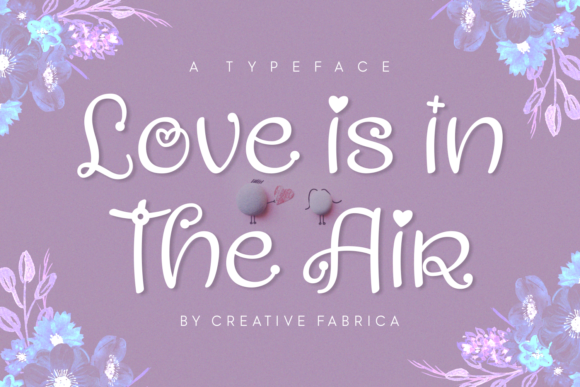
Love is in the Air Font
As a small business owner, I know how important it is to create a cohesive and professional brand identity. That’s why I’m excited to share how Love is in the Air, a beautiful script font from Script Amp, can elevate your business materials with its elegant and romantic style.
Love is in the Air is more than just a font—it’s a design tool that adds a touch of charm and personality to any project. Its flowing script, decorated with subtle hearts and embellishments, gives it a soft, inviting feel that’s perfect for businesses looking to convey warmth and sincerity.
This font works especially well for brands targeting a romantic or nostalgic audience. Whether you run a boutique, a café, a handmade product shop, or a coaching business, Love is in the Air can help you create a visual identity that feels authentic and memorable.
Real-World Applications for Love is in the Air
One of the biggest advantages of Love is in the Air is its versatility. It can be used across a wide range of business materials, from logos and packaging to social media posts and website banners. Here are some practical examples:
- Logos: Use Love is in the Air as the main font for your logo to create a unique and eye-catching brand mark.
- Business Cards: Add a personal touch to your business cards by using this font for your name, title, or contact information.
- Product Labels: For handmade products like candles, soaps, or skincare items, Love is in the Air can make your labels look more polished and professional.
- Packaging Design: Incorporate this font into your packaging to reinforce your brand’s personality and create a cohesive look.
- Menus and Flyers: Use it for headings or special offers to draw attention and add a decorative flair.
- Social Media Graphics: Create engaging Instagram posts, Pinterest pins, or Facebook ads with this font to stand out in crowded feeds.
Whether you're designing a website banner or crafting a thank-you card, Love is in the Air brings a sense of elegance and creativity to every project.
Why Font Choice Matters for Small Businesses
Choosing the right font isn’t just about aesthetics—it’s about building trust and recognition. A consistent and professional look helps customers remember your brand and feel confident in your offerings.
For example, if you run a bakery, using Love is in the Air on your product labels or menu can make your brand feel more approachable and heartfelt. Similarly, a beauty brand could use this font on packaging to evoke a sense of luxury and care.
When used strategically, Love is in the Air can act as a visual signature for your brand. It’s ideal for headlines, logos, and other prominent text elements where you want to make a strong impression.
Readability and Practical Use
While Love is in the Air is highly decorative, it remains readable in most contexts. However, it’s best suited for display purposes rather than body text. You’ll get the best results when using it for headlines, titles, or short phrases.
On mobile screens, printed packaging, or social media thumbnails, this font holds up well as long as it’s not too small or crowded with other text. Always test it at different sizes and in various formats before finalizing your designs.
If you’re unsure whether Love is in the Air will work for your project, try using it in a few sample designs. Print it out, view it on a phone, or share it with a friend to see how it looks in real-world settings.
Font Pairing Tips
To maximize the impact of Love is in the Air, consider pairing it with complementary fonts. This creates balance and ensures your designs remain legible and professional.
- Sans Serif: Pair Love is in the Air with a clean, modern sans serif font like Helvetica or Arial for a fresh and contemporary look.
- Serif: Combine it with a classic serif font such as Georgia or Times New Roman for a timeless and elegant feel.
- Handwritten: If you want to keep things casual, pair it with another handwritten or script font for a cohesive, creative vibe.
Experiment with different combinations to find what works best for your brand. The goal is to create a visual hierarchy that guides the reader’s eye and supports your message.
Overall, Love is in the Air is a powerful tool for small business owners who want to add a touch of romance and sophistication to their branding. With its stylish script and versatile applications, it can help you create a more professional, consistent, and memorable brand presence across all customer touchpoints.
Whether you’re launching a new business or updating an existing one, consider adding Love is in the Air to your design toolkit. It’s a font that not only looks great but also helps tell your brand’s story in a meaningful way.